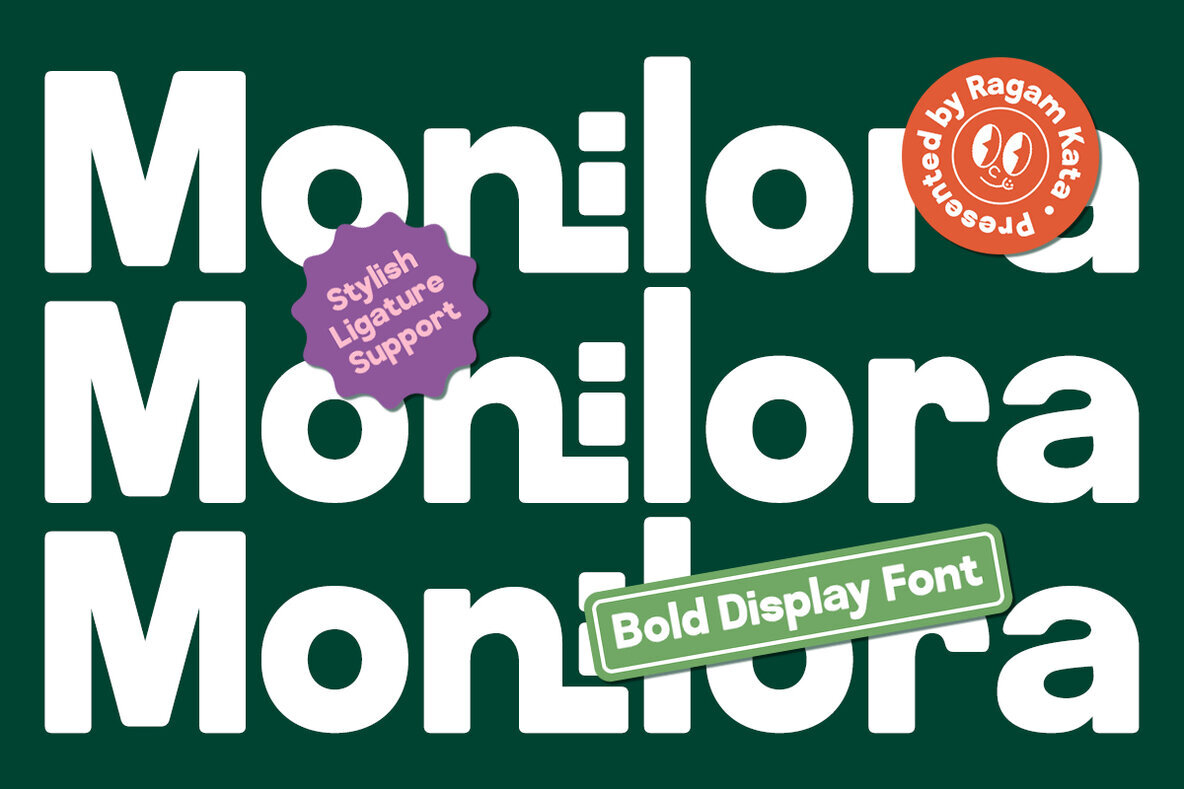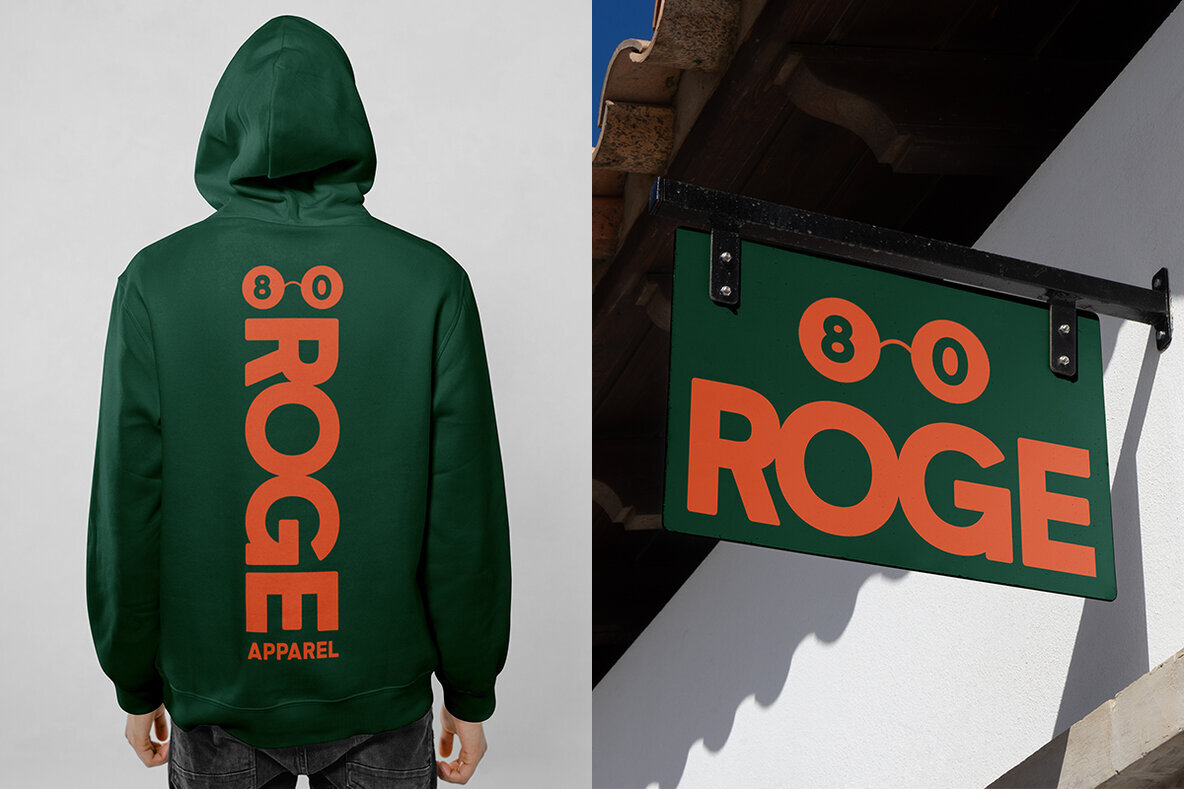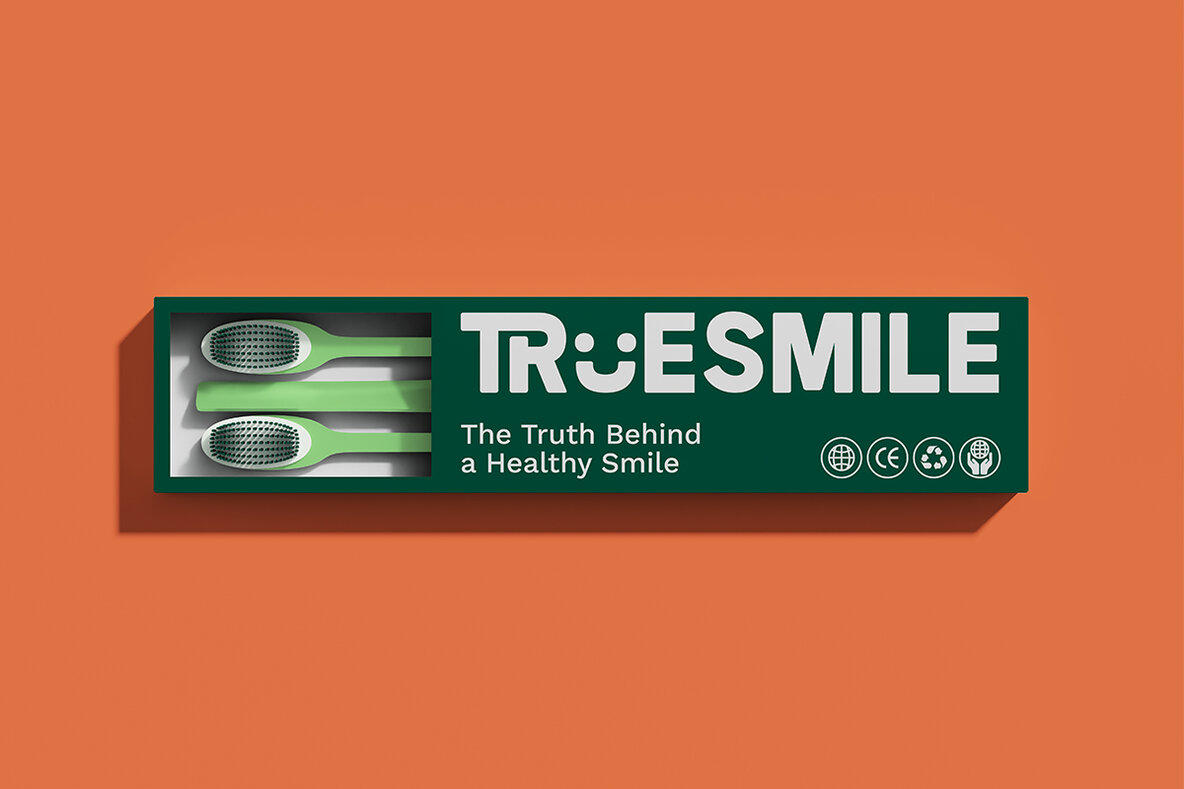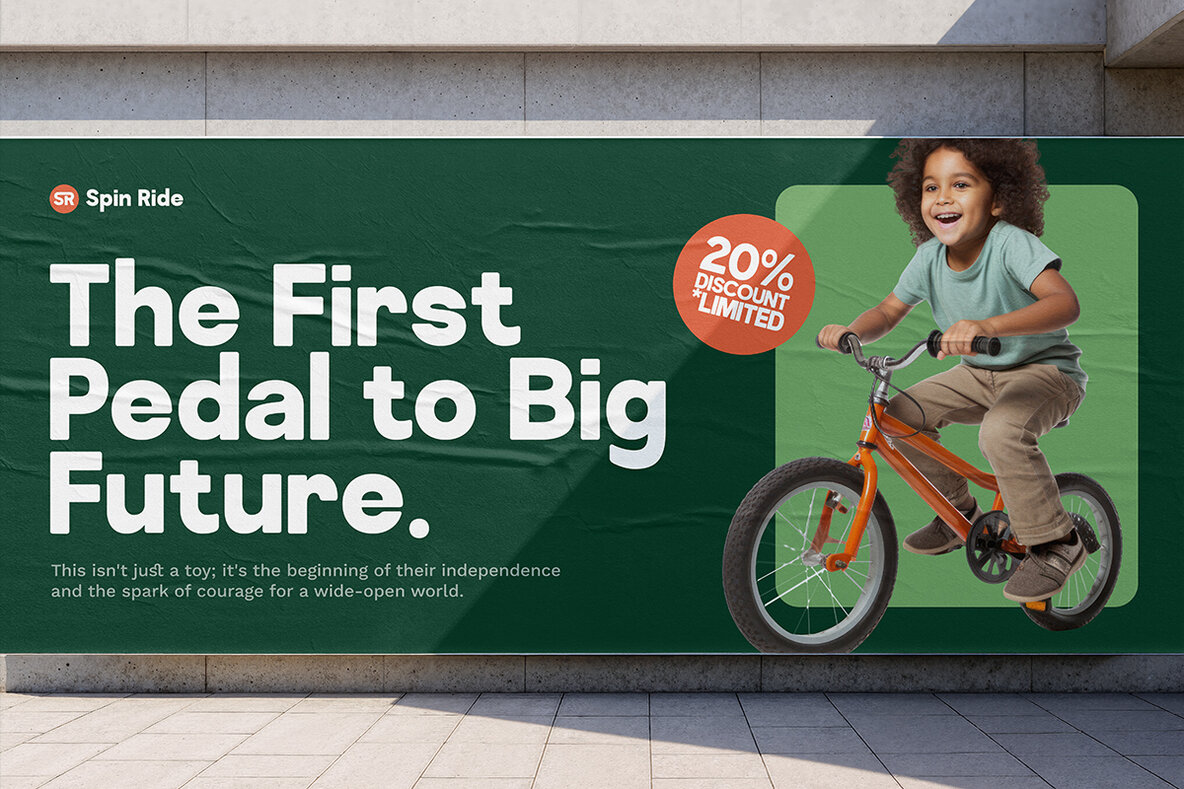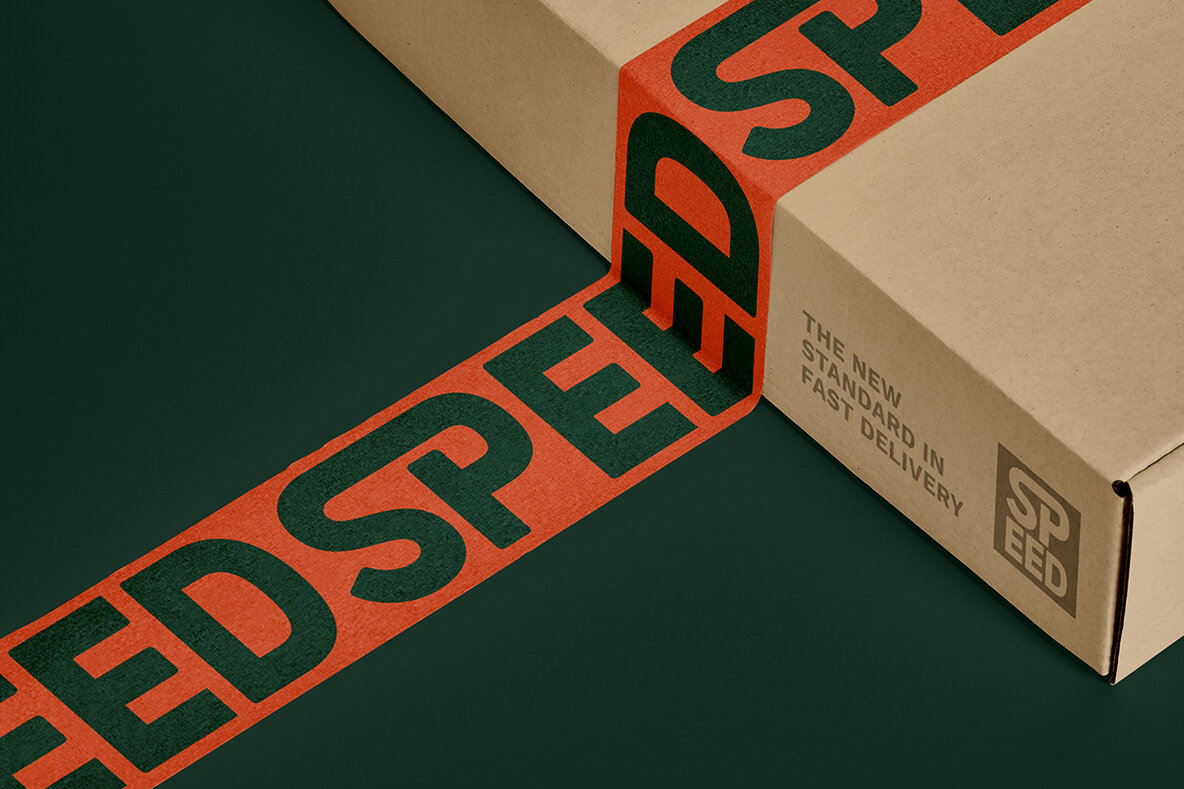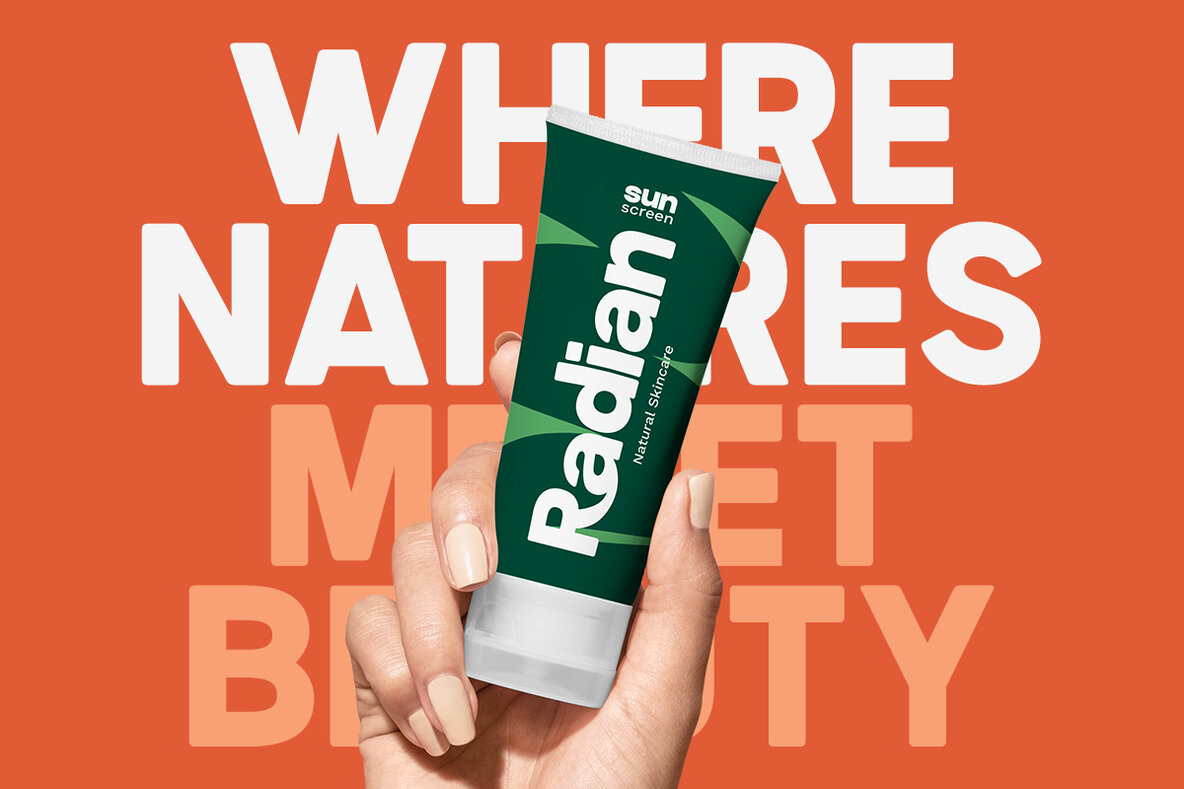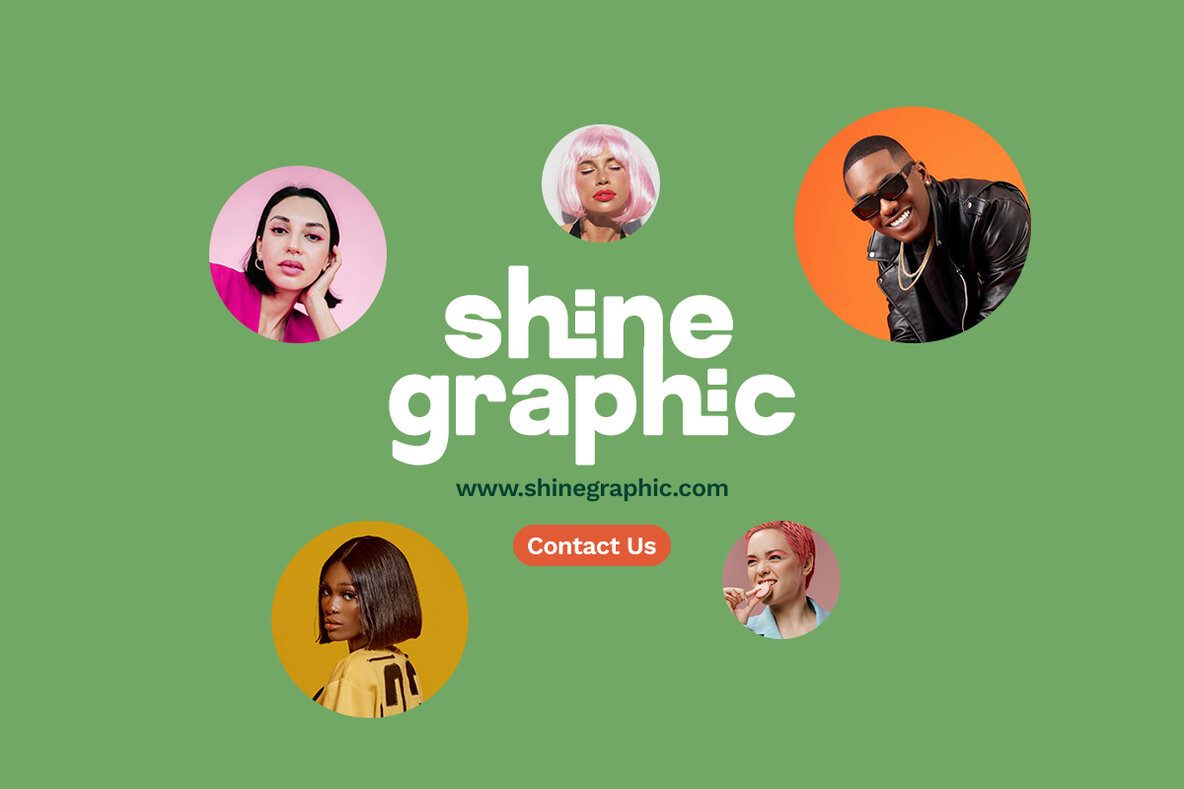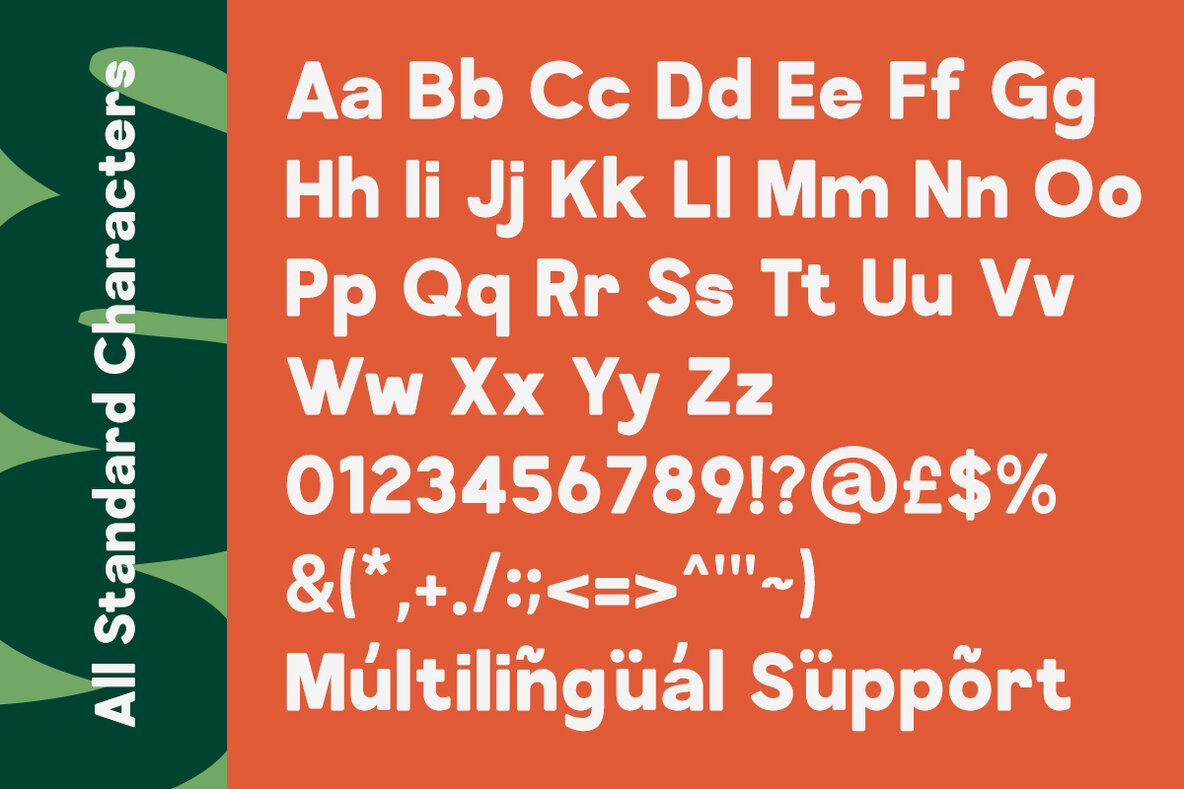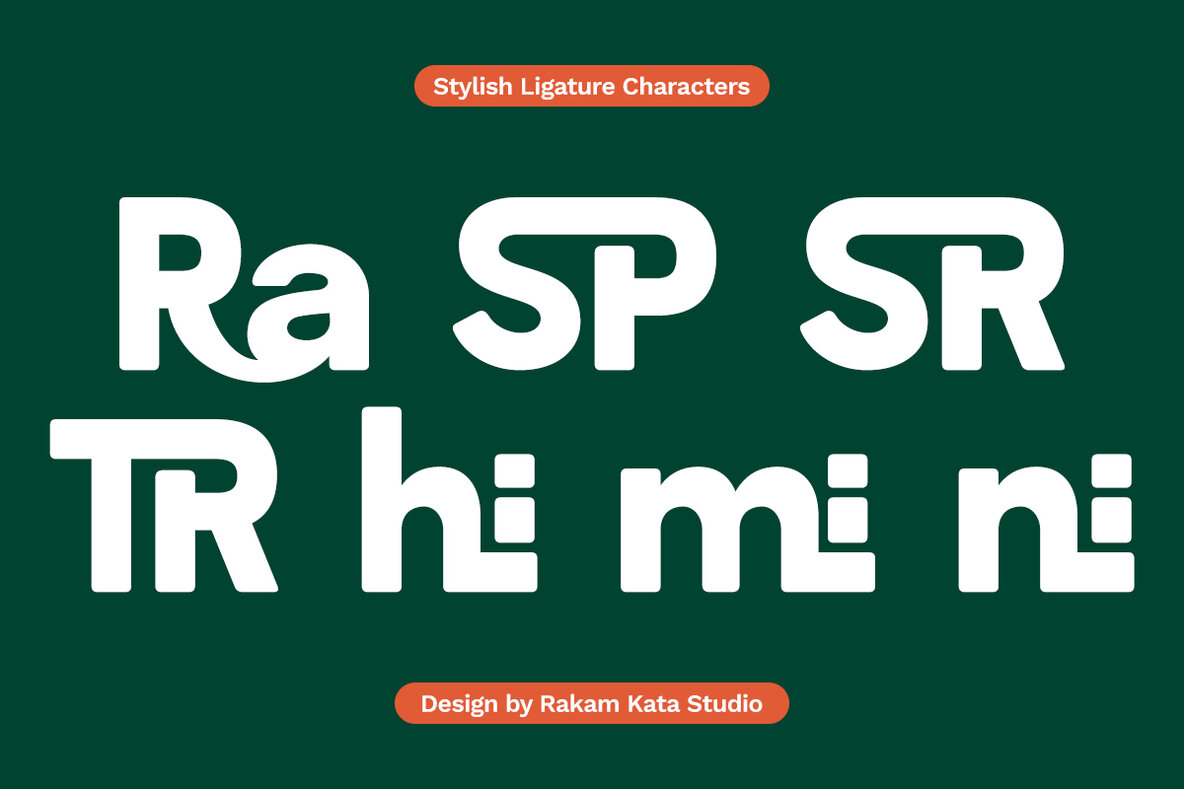
Monilora Font
Monilora Regular
Monilora introduces a bold approach to display typography, pairing modern geometric shapes with a lively character. Designed to capture attention, its strong curves and balanced structure make it ideal for branding, posters, packaging, and editorial layouts. Monilora’s contemporary style ensures every headline stands out with clarity and personality. The thoughtful inclusion of stylish ligatures offers visual interest and variety within your compositions, while multilingual support meets the needs of global design projects. Monilora is well-suited for creatives who value both impact and readability in their work. Bring a fresh, confident tone to your next project with this versatile display typeface.Monilora Bold Display Font – Playful Geometry for Distinctive Headlines